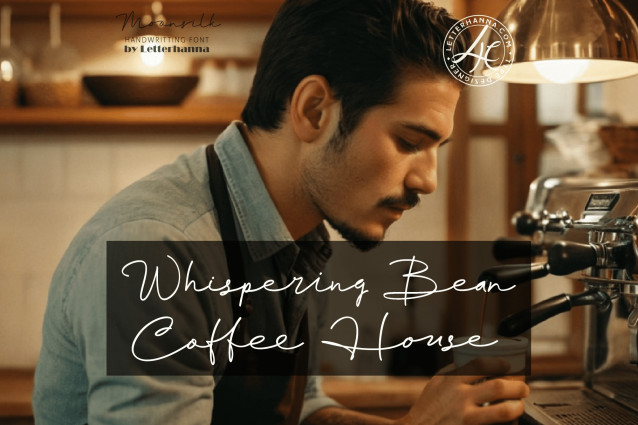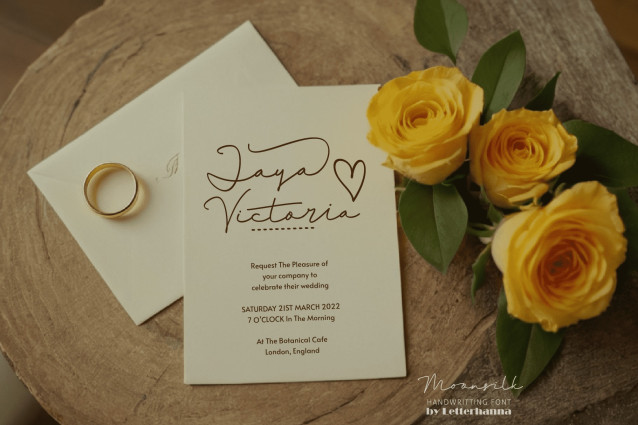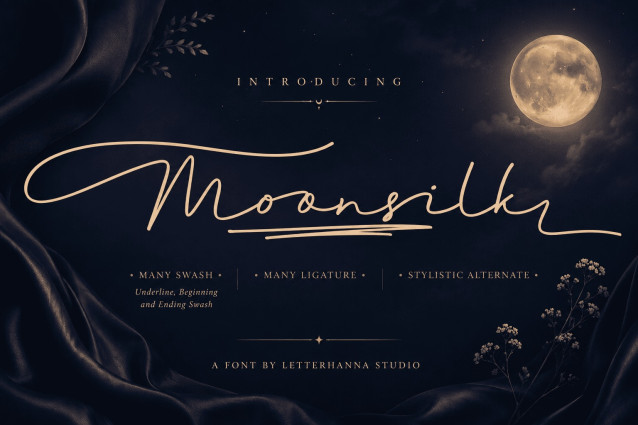
Introducing Moonsilk: Where Elegance Meets Ethereal
Moonsilk is a typeface that captures the luminous quality of moonlight woven into the delicate threads of silk. Its soft curves and pearlescent sheen evoke a sense of luxury and otherworldly beauty.
Moonsilk is perfect for: Wedding invitations and stationery: Add a touch of timeless elegance to your special day. Branding and packaging for luxury products: Elevate your brand with a touch of sophistication. Creative projects with a touch of fantasy: Let Moonsilk add a hint of magic to your designs.